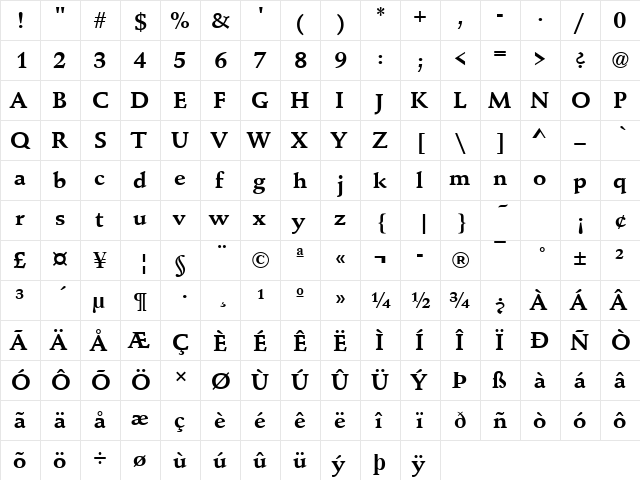
SchneidlerMedT Bold
Design Context for SchneidlerMedT Typeface
SchneidlerMedT is a composed and adaptable typeface that performs quietly and consistently across a wide range of design contexts. Its bold stroke weight gives it real presence on the page.